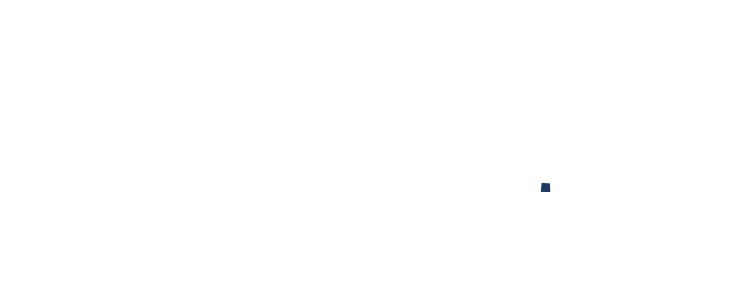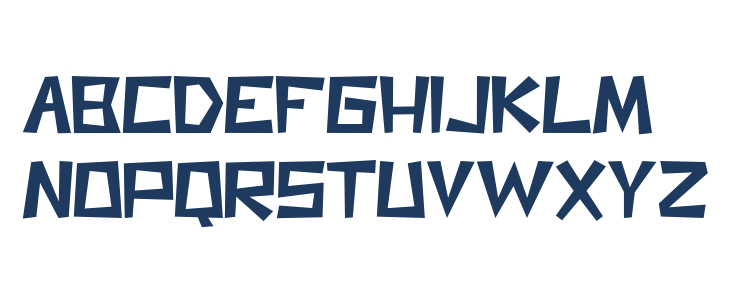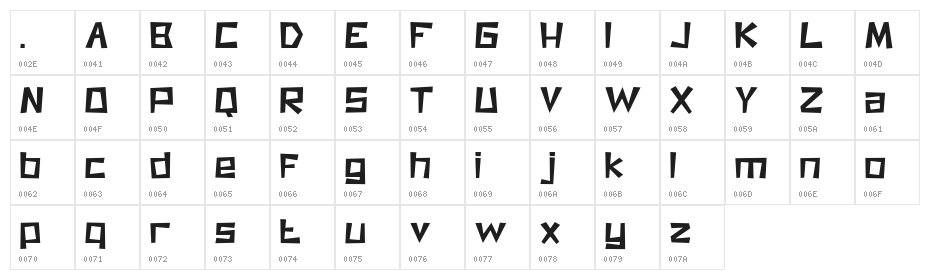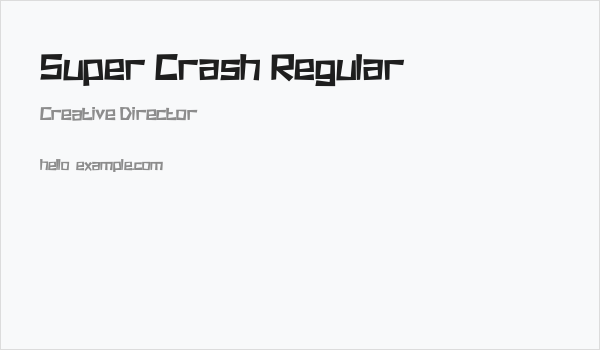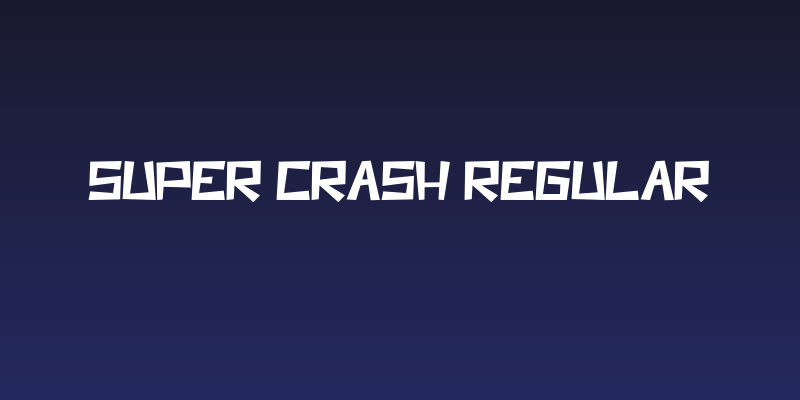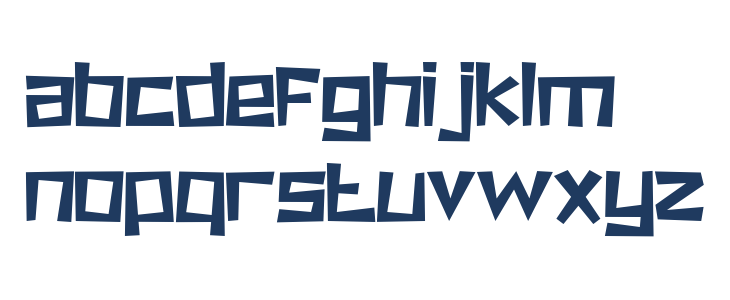
Super Crash Regular Font
Super Crash Regular Description
| Overall Style | Decorative, Playful, Modern |
| Use Case | Headlines, Posters, Logos, Comic Titles |
| Proposed Projects | Posters, comic book titles, video game graphics, event flyers, youth branding, and creative headlines. |